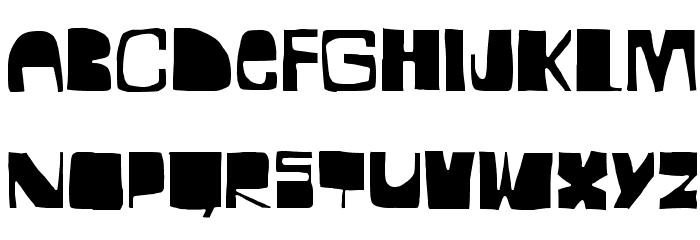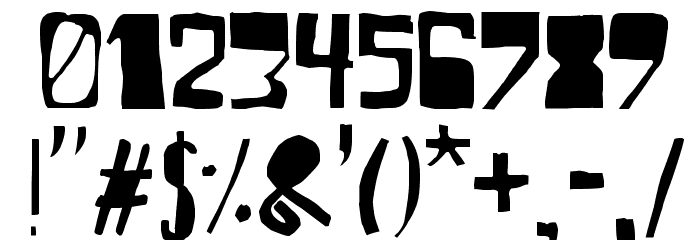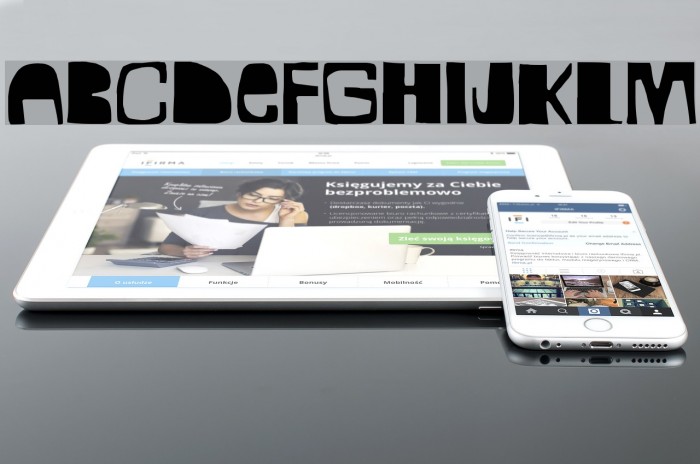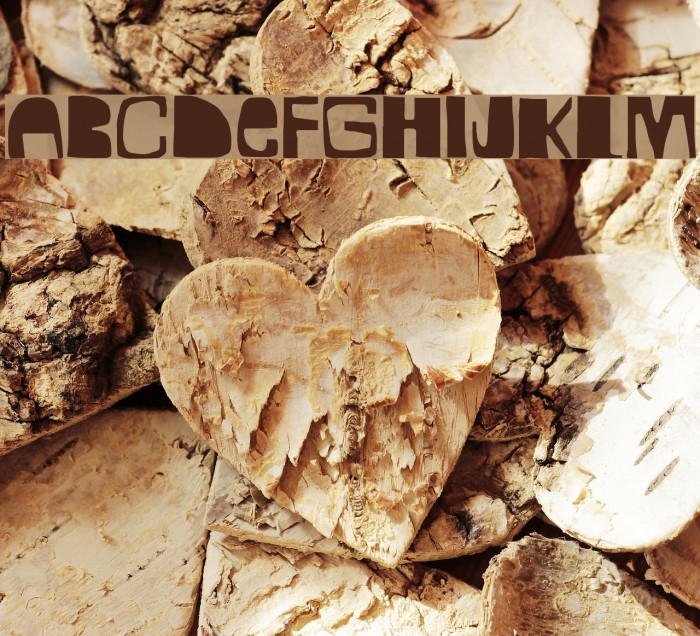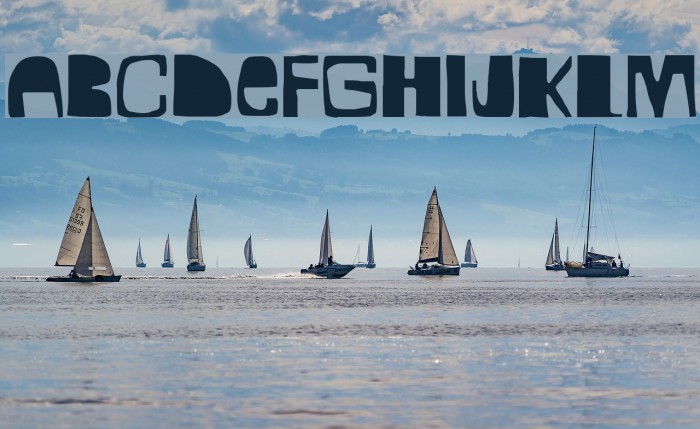
BOCADILLO DE MORTADELA Font
This font features a bold and playful design with a distinctly irregular and chunky appearance. The characters are heavily stylized, with varying widths and exaggerated curves, giving it a unique and artistic flair. The uppercase and lowercase letters maintain a consistent visual theme, while the numbers and special characters are equally bold and expressive. The font's overall look is reminiscent of hand-cut paper or stencil art, making it stand out with its unconventional shapes and forms.
A bold, playful font with irregular, chunky characters and a hand-cut appearance.
- Proposed Projects: Ideal for creative projects such as posters, album covers, children's books, and branding for playful or artistic brands.